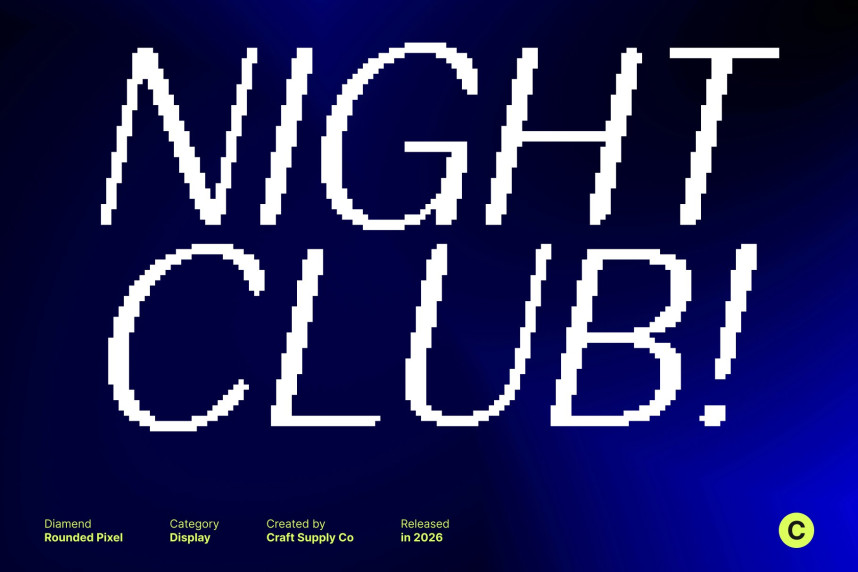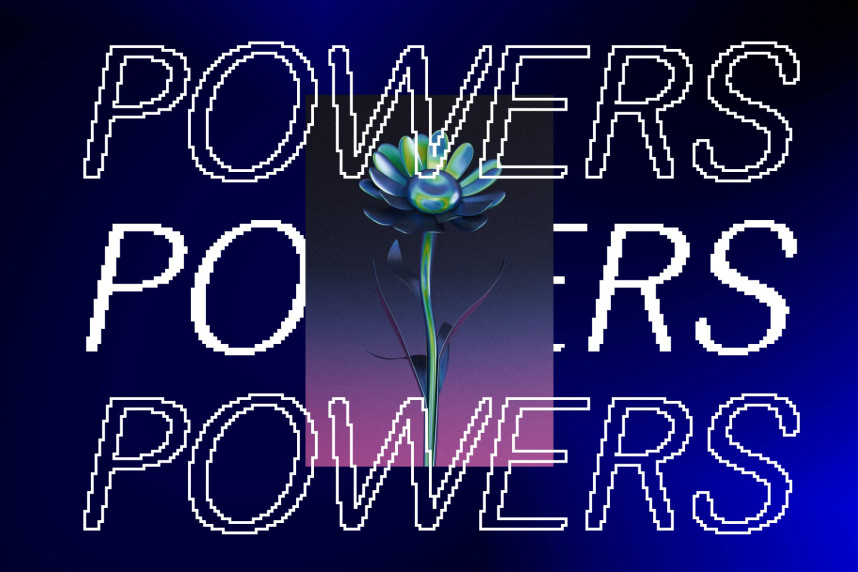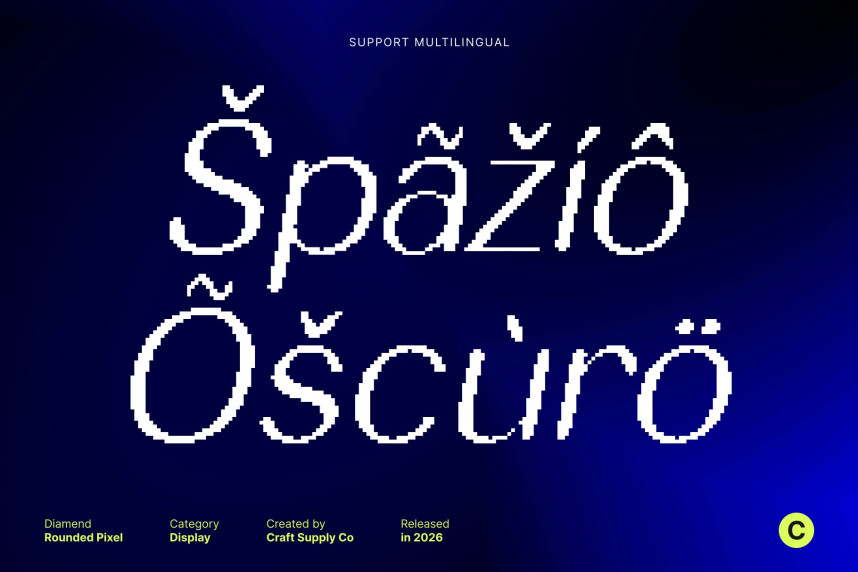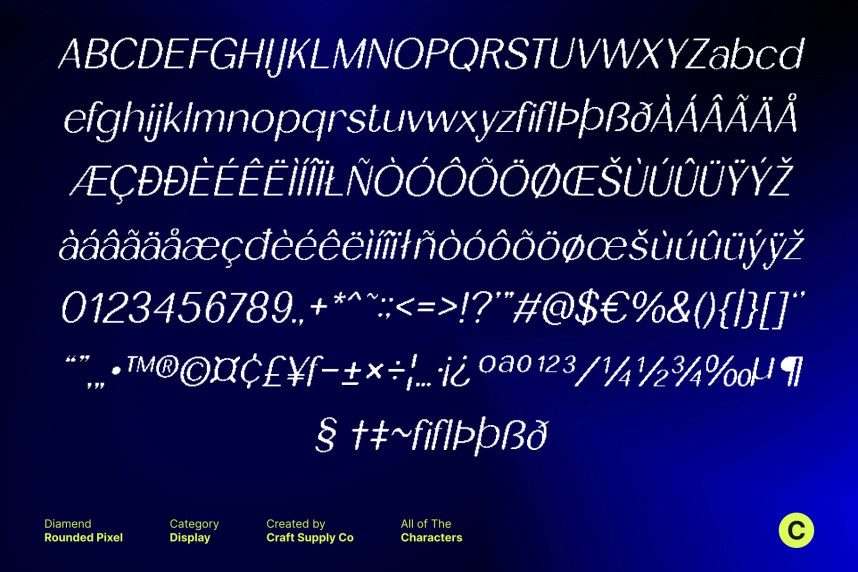
Diamend Rounded Pixel Font
Diamend Rounded Pixel Font – A Subtle Elegance Sans Serif Smooth Rounded Sans with Pixel Softness. This is a refined sans serif font that combines smooth, rounded letterforms with a subtle pixel character. This blend creates a soft yet modern appearance, delivering clarity, warmth, and gentle sophistication in every letter.